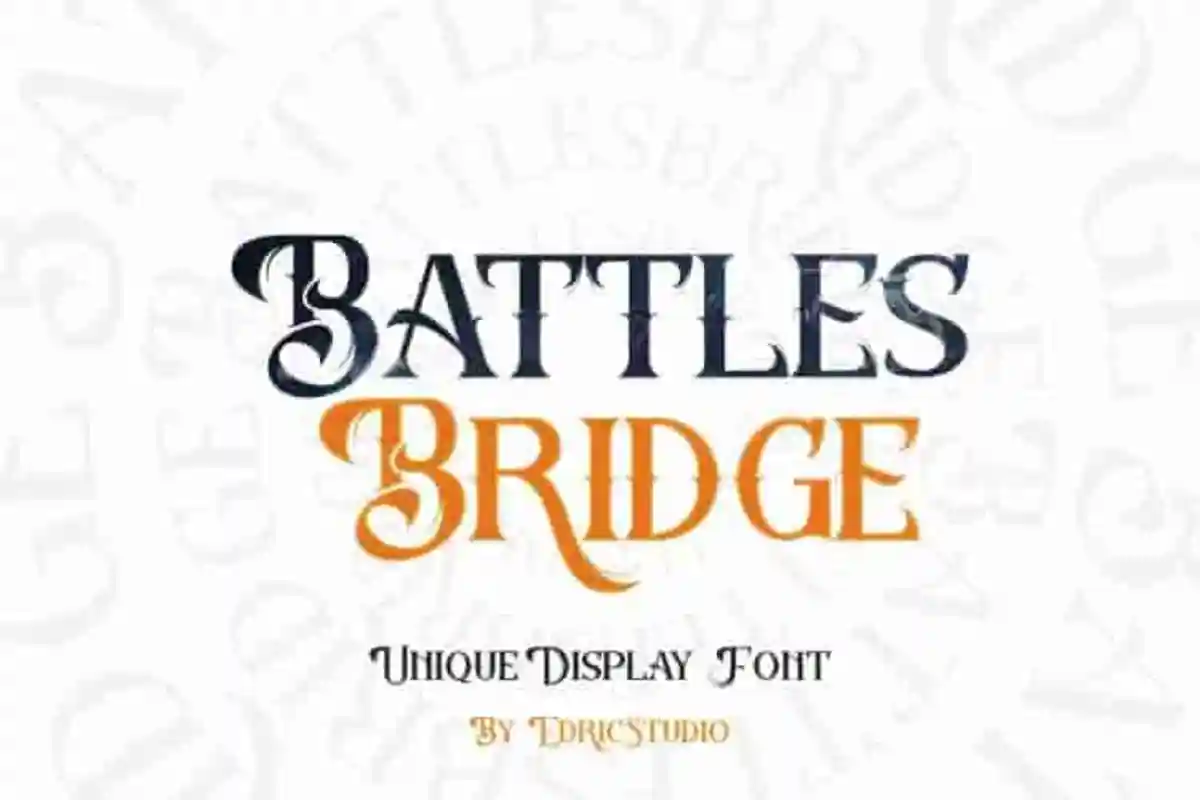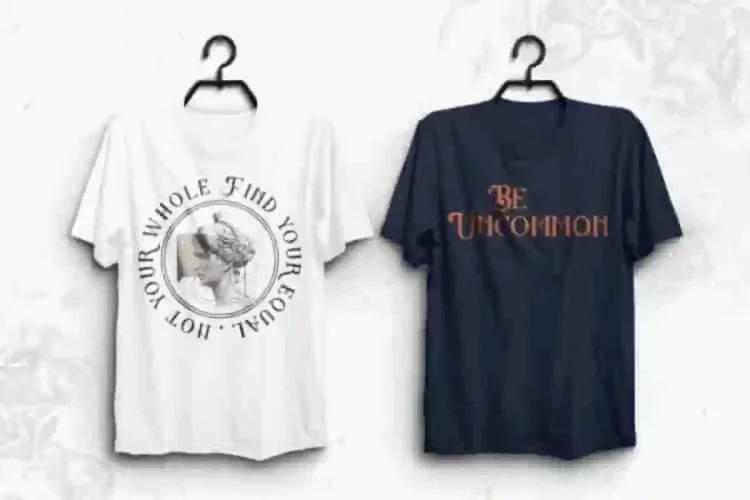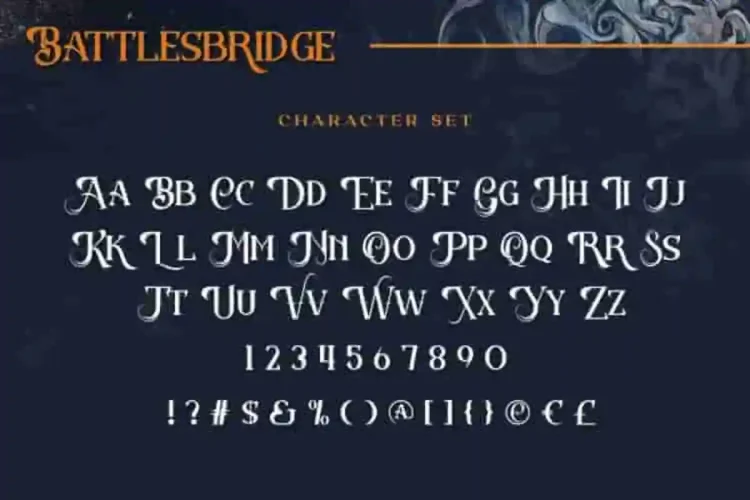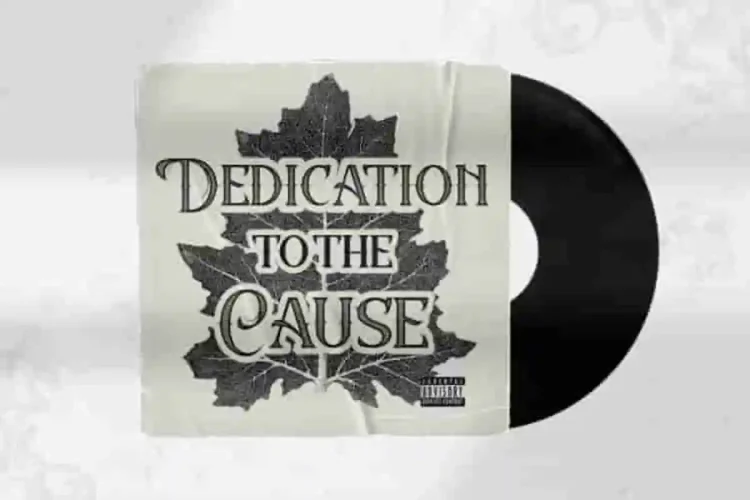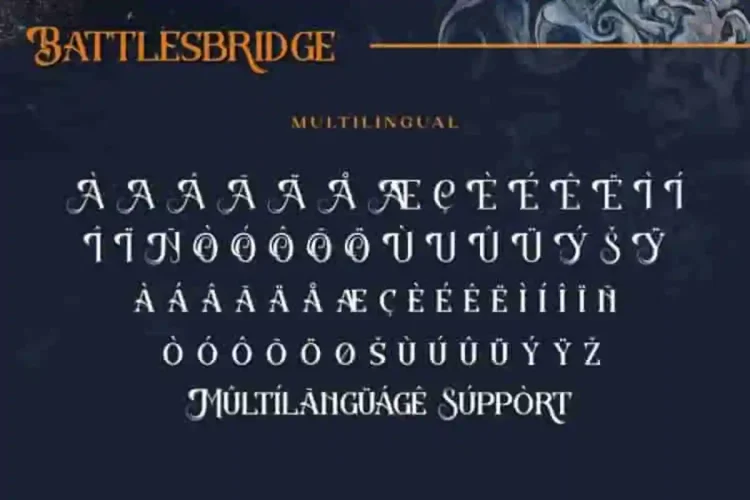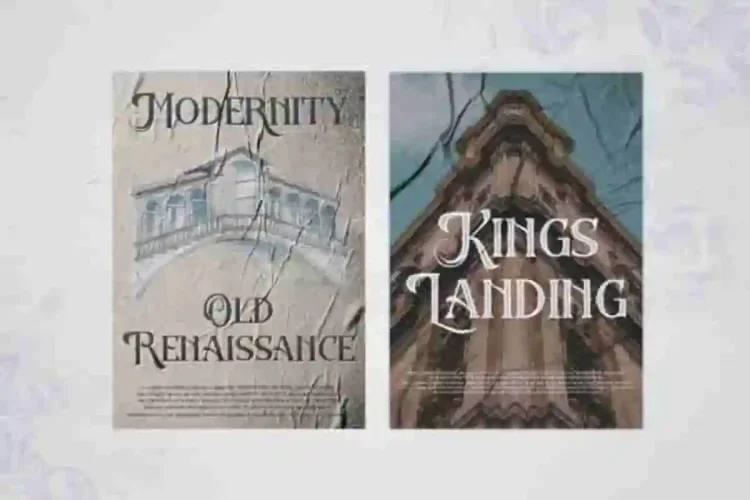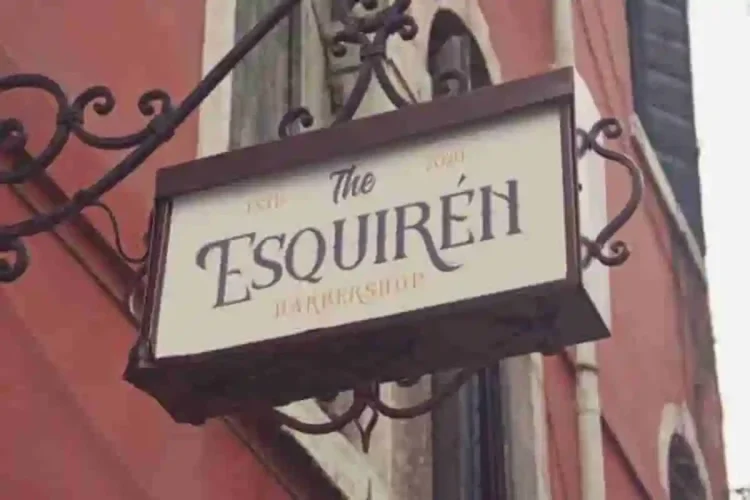
Battlesbridge Display Font
Battlesbridge Display Font is a display with unique character. The style of this font are horror, old, unique with bold curly styles. Inspired by the old scary style suitable for use on projects like Halloween and spooky genres. Handcrafted display typeface designed in our Studio, Indonesia. Battlesbridge Display Font will be great for any projects including : logo branding, business card, logo, stationery, signage, title etc.